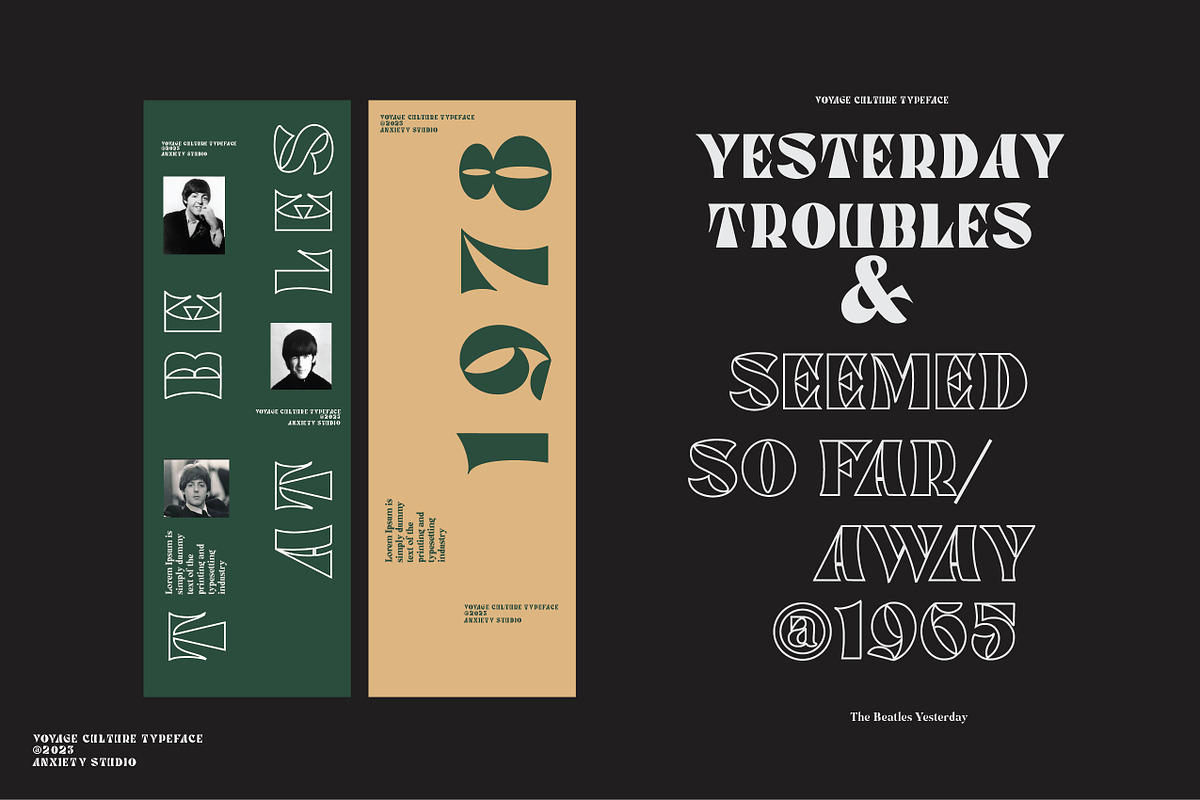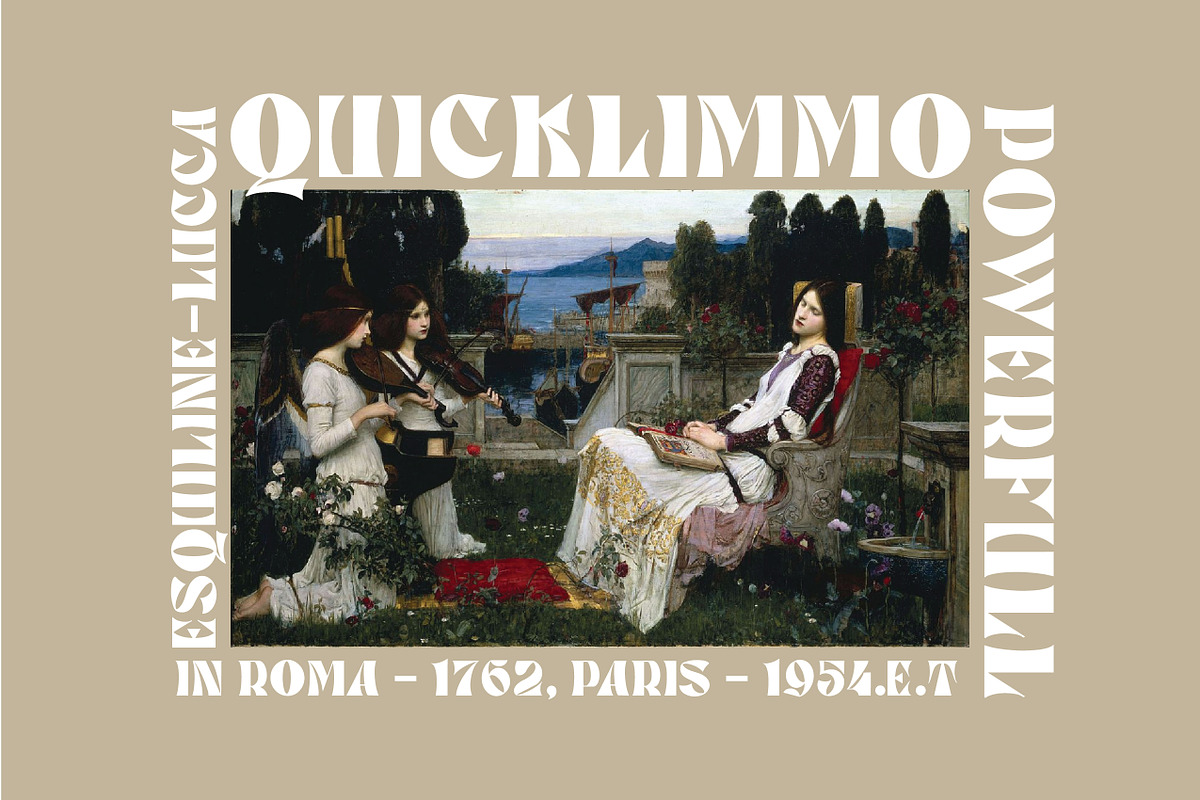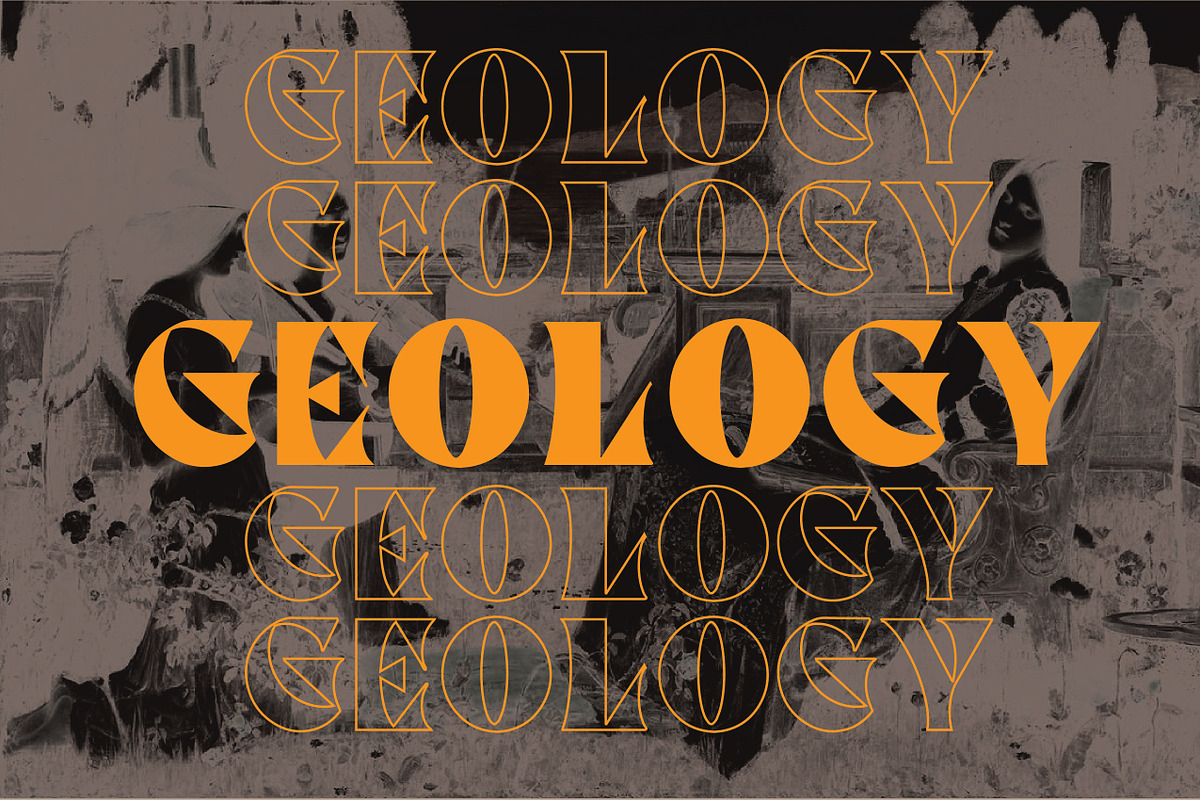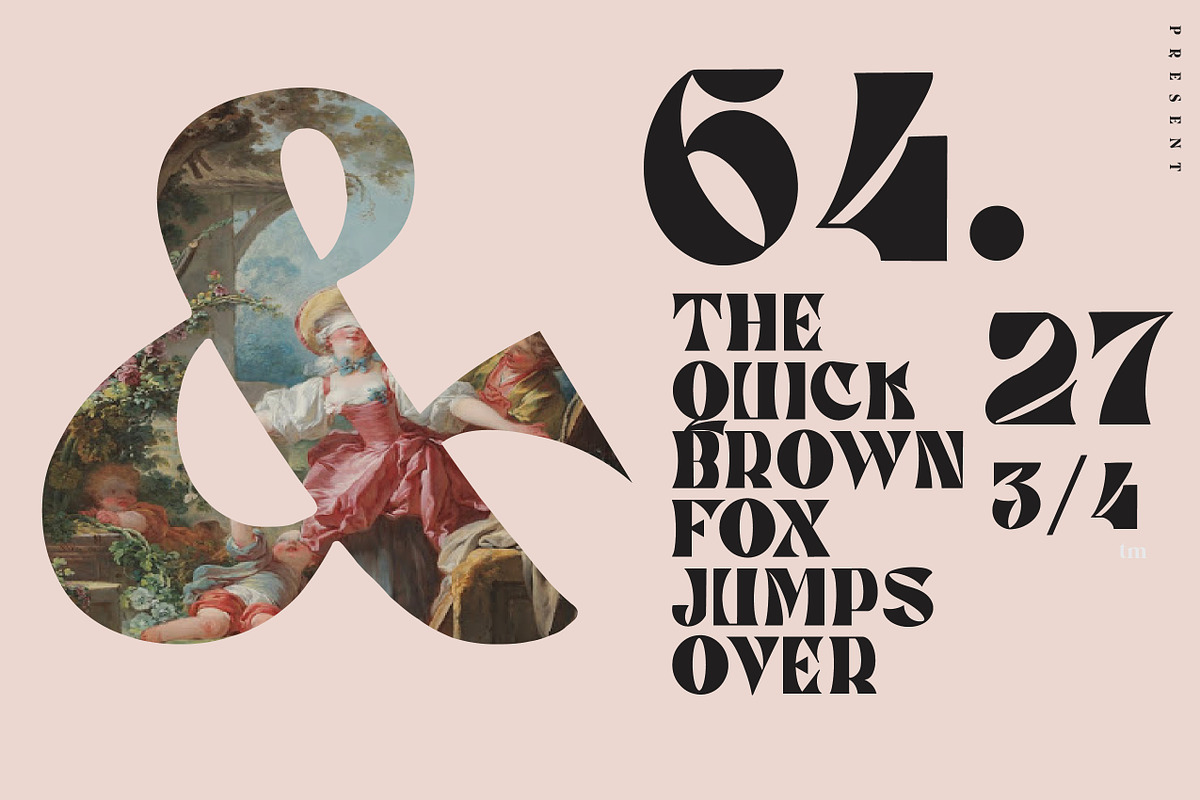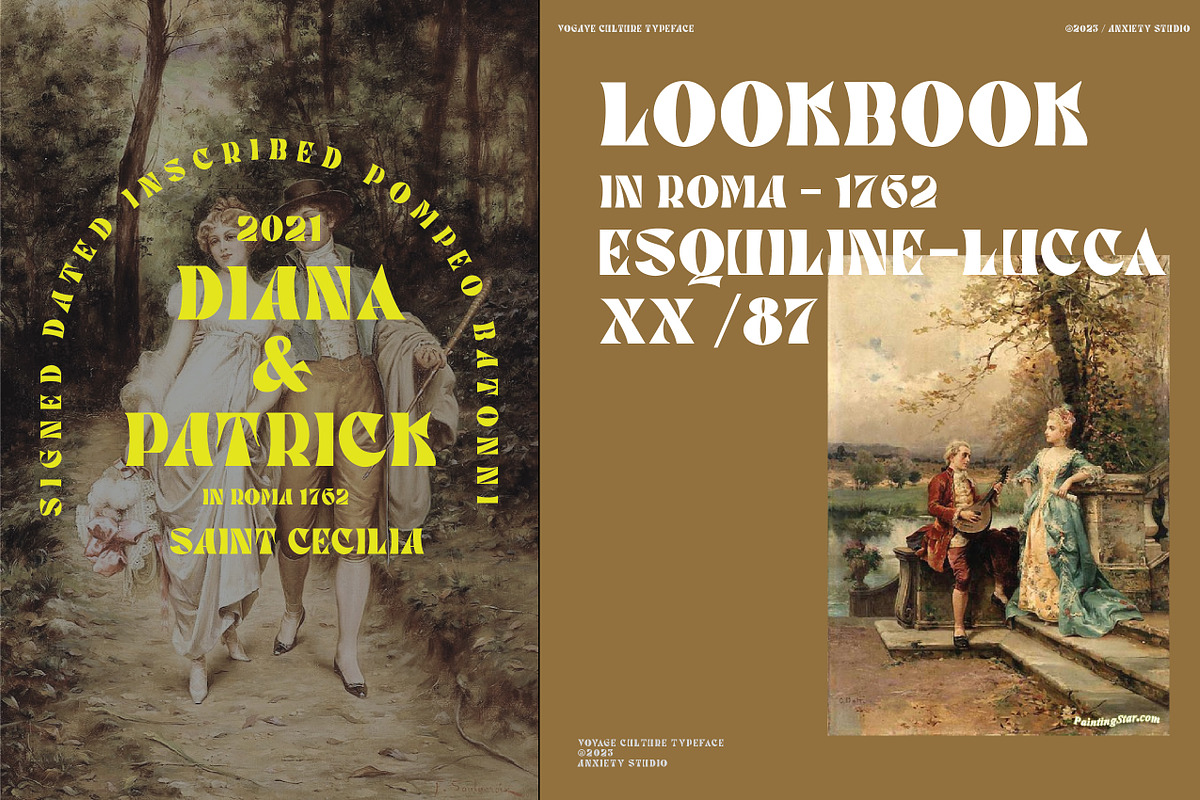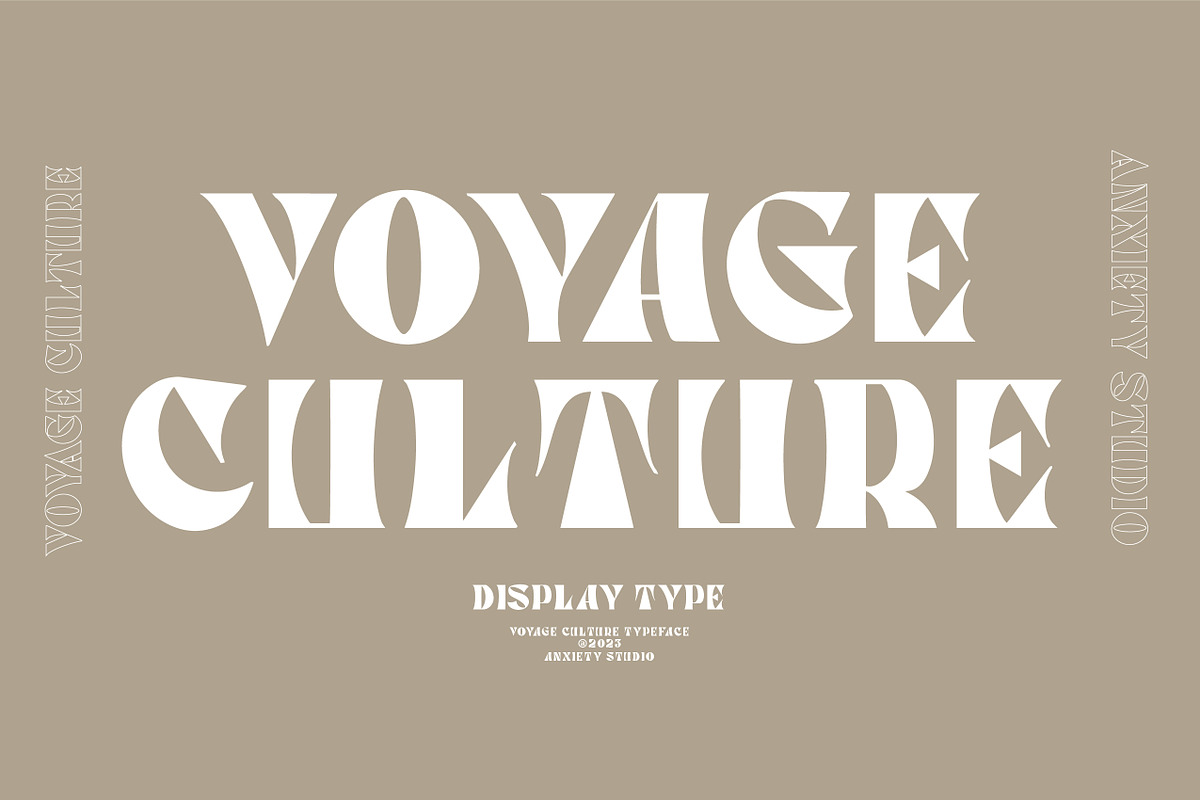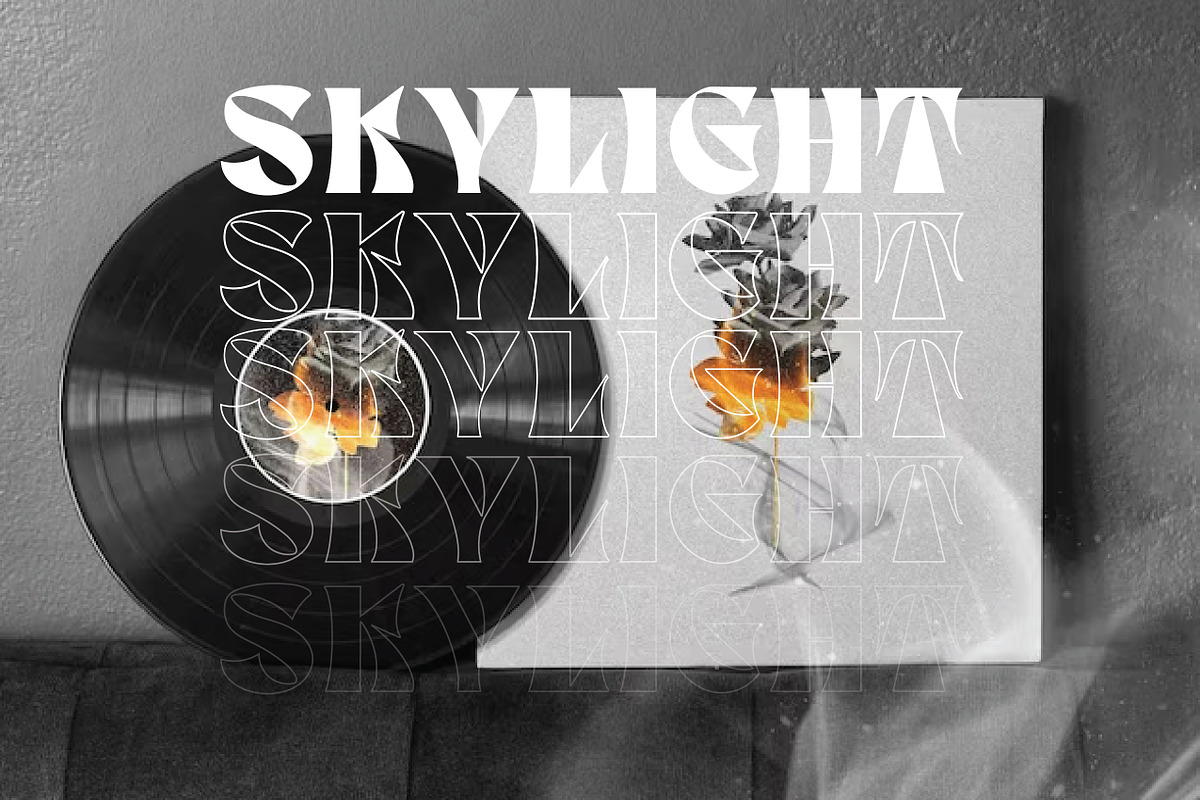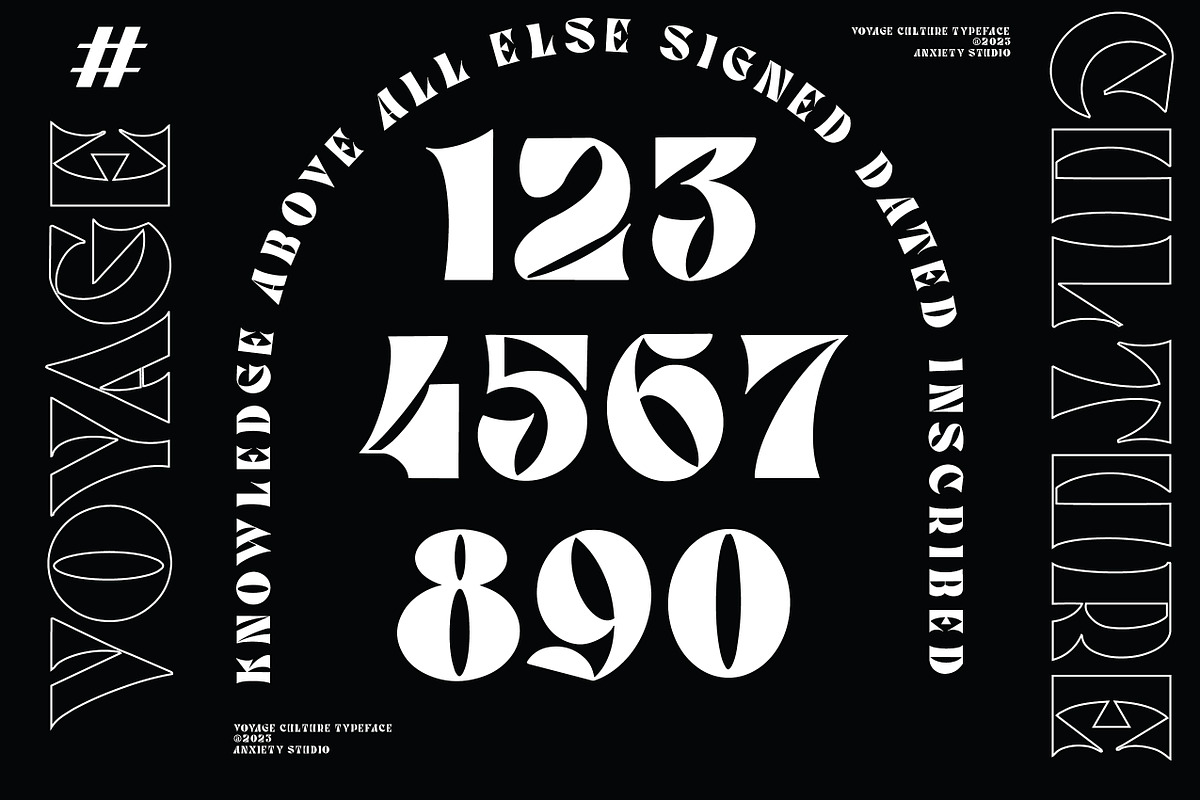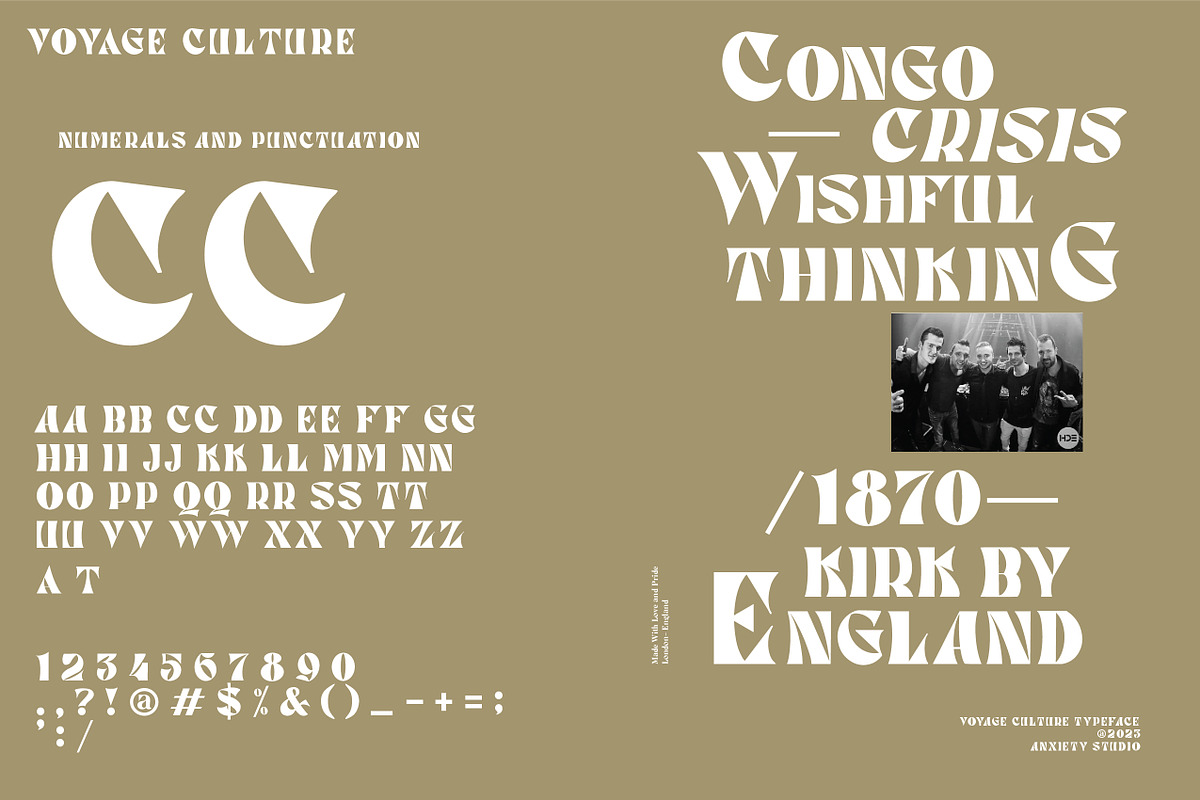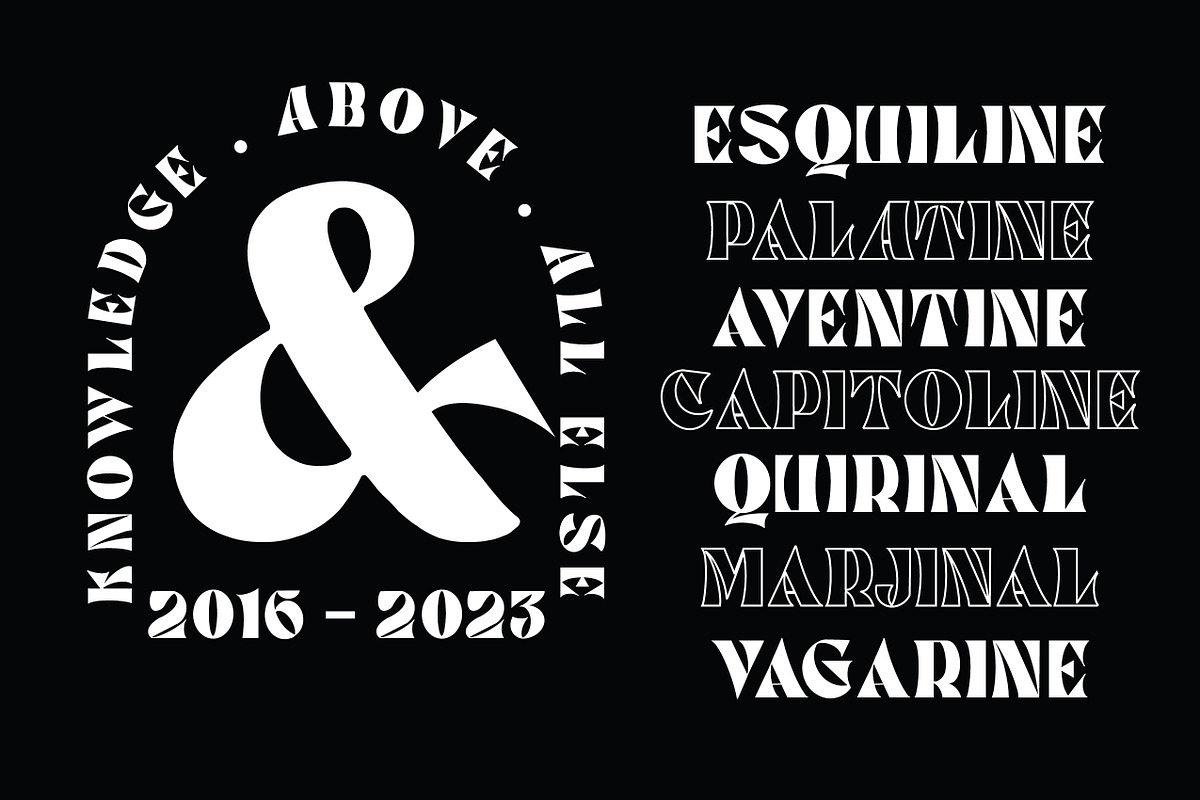
VOYAGE - CULTURE is an elegant sans serif. Simple letterforms with attractive curves keep the letters in perfect balance. Created for use with an eye-catching display inspired by the rich ancient history and lineage of Italian type, in bold, very eccentric letters.